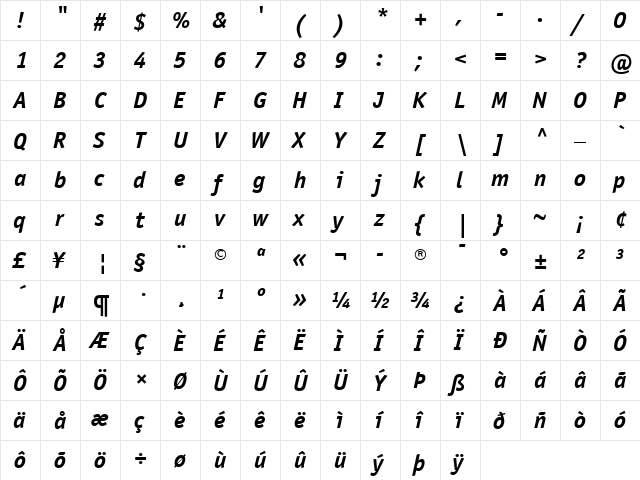
ITCOfficinaSans LT Book Bold Italic Font Preview
Design Context for ITCOfficinaSans LT Book Typeface
ITCOfficinaSans LT Book offers clean, dependable letterforms without strong stylistic allegiance, making it a practical choice for designers who need flexibility. The dynamic lean of this cut emphasises speed and emphasis in any layout. The heavy weight commands attention and anchors typographic hierarchies.
Pro Tip: Use ITCOfficinaSans LT Book for emphasis, pull quotes, and subheadings where its slanted energy can add rhythm to the layout.